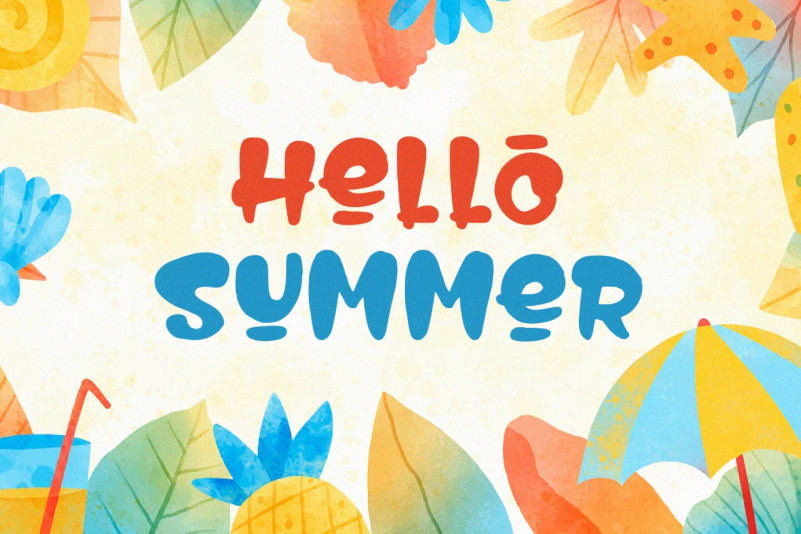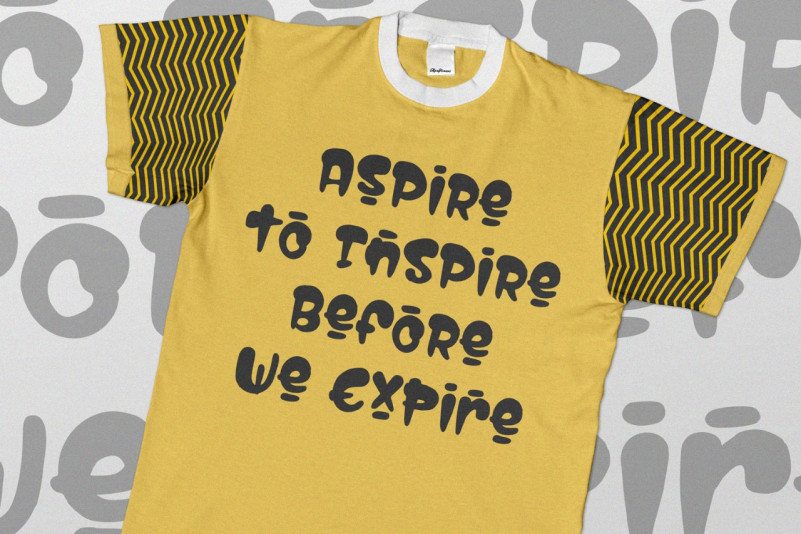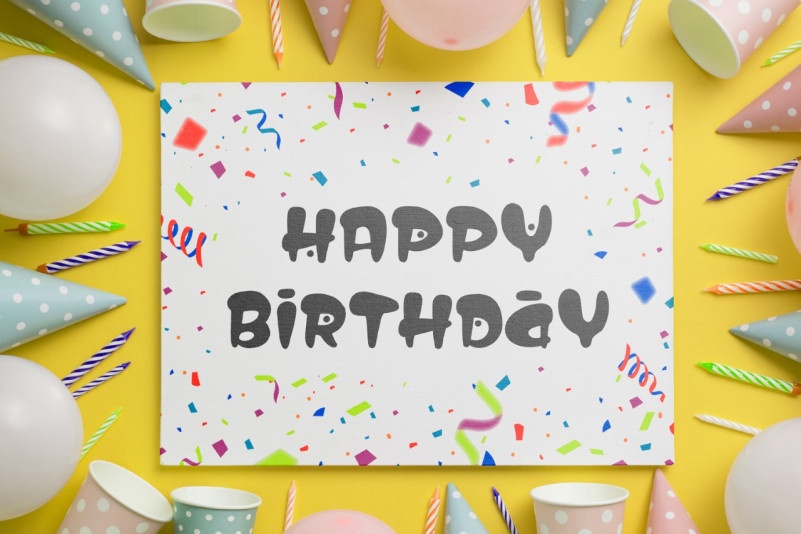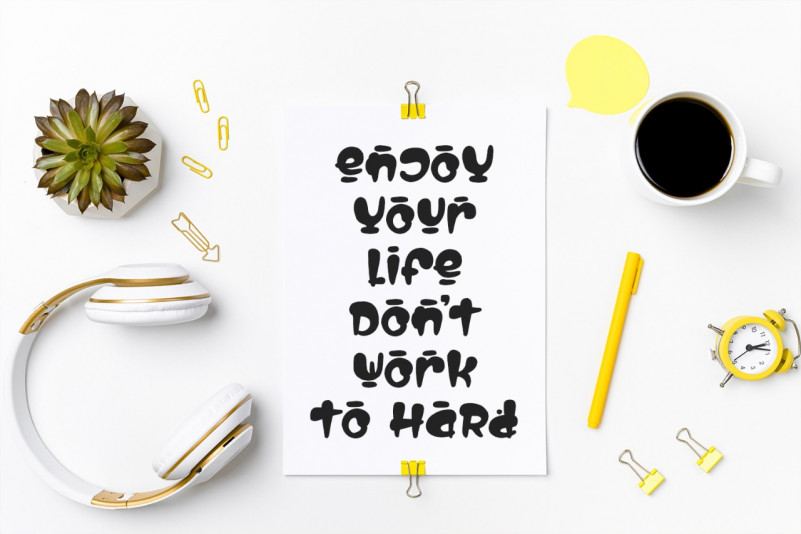
Life Hacks Display Font
This is a playful and elegant display font. Its distinct and well rounded letters make this font a masterpiece. Fall in love with its incredibly versatile style and use it to create spectacular designs!